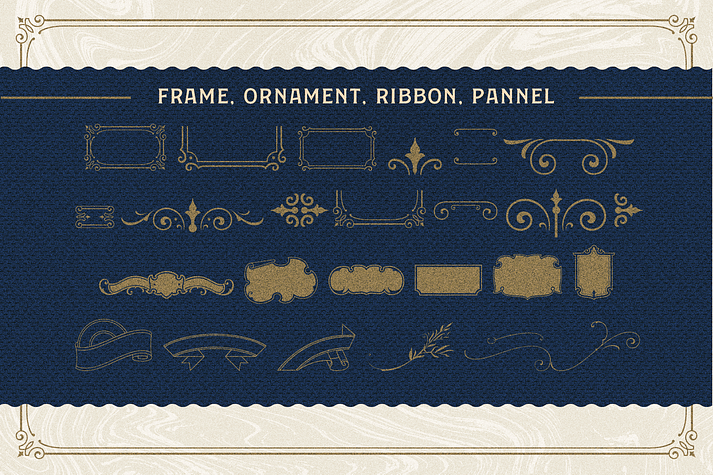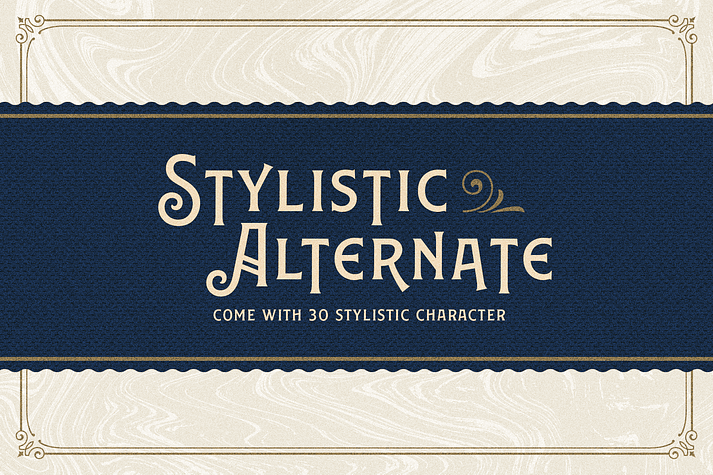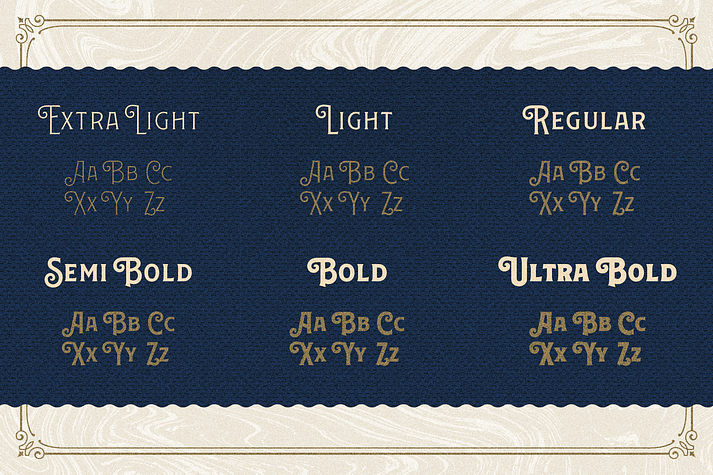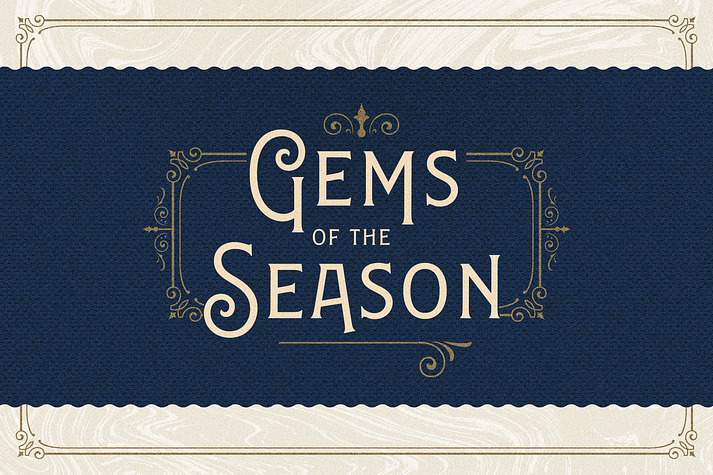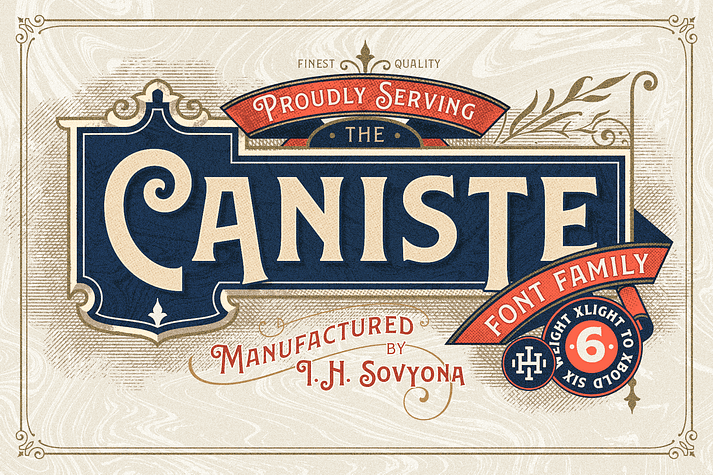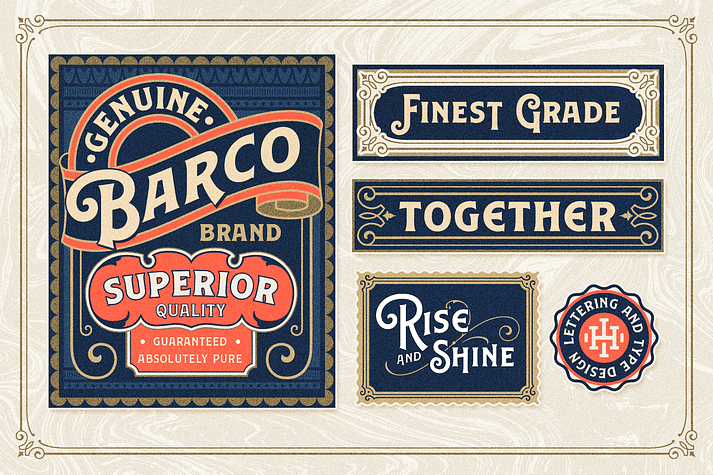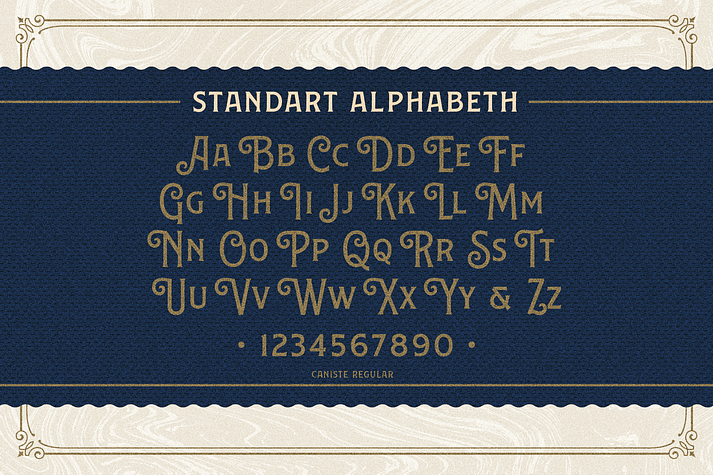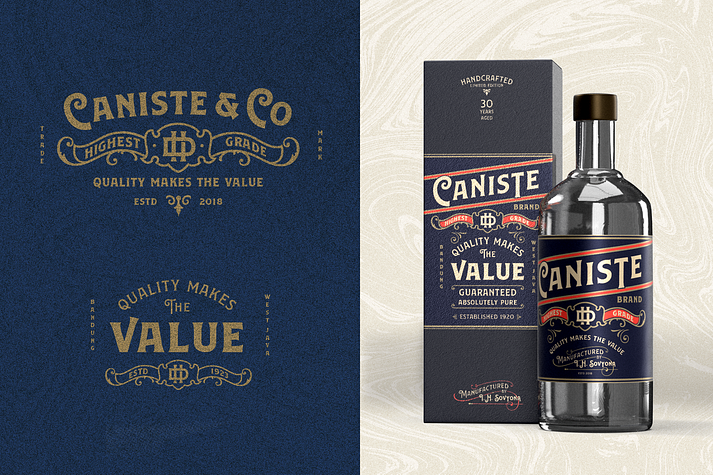
Caniste
Caniste is a font family. This typeface has seven styles and was published by Ilham Herry.
**CANISTE FONT FAMILY
Vintage typeface come again with family, passion in something old and aesthetic is one reason the Caniste font family is made, inspired from antique aphemera, labels, cigar box label that exist in 19th century, where much a beauty of typographic design at that time.
Caniste font family is allcaps serif font with titling in uppercase, come with 6 weight : Extralight, Light, Regular, Semibold, Bold, and Ultrabold, also very user friendly Extras with scroll, ornament, and panel, allows you to decorate the design just by typing in your keyboard. In embed video you can see how to design a beautifull simple lable with this font.